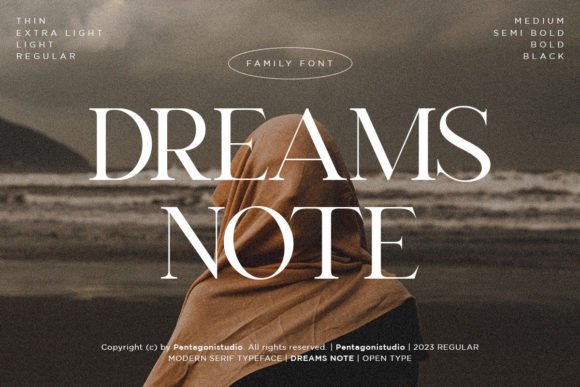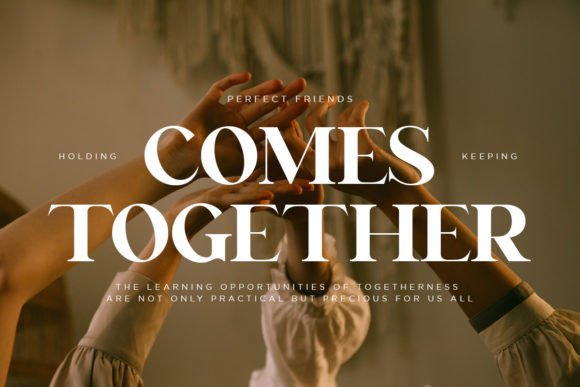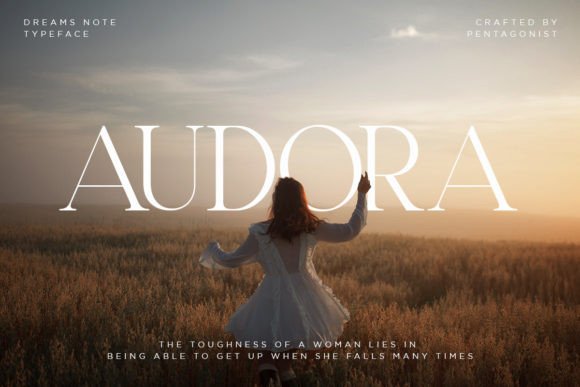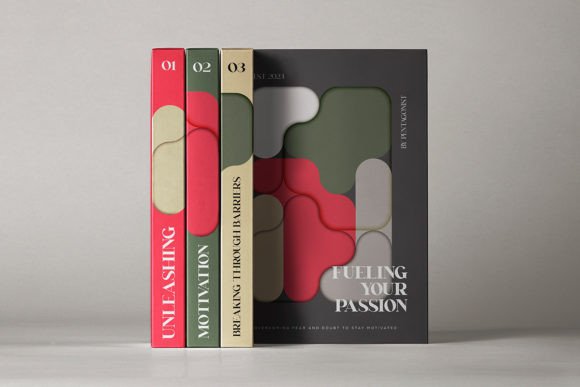
Dreams Note Font
About the Dreams Note Font
We are excited to introduce Dreams Note Font, a must-have typeface for any serious designer. Dreams Note Is A Modern Family Font Serif Including 8 Font Style. It has a modern style with a touch of creative ideas that is very suitable to be applied anywhere that requires creative ideas.
Dreams Note excels in display applications such as headlines, logos, and short-form text on posters or packaging. Its modern serif design lends a touch of sophistication without sacrificing readability in larger sizes. However, its relatively high x-height and unique character shapes make it less suitable for body text or extended reading. Avoid using it in user interfaces or situations demanding high legibility over long stretches of text.
The font’s personality is best described as modern and creative, with a slightly playful yet sophisticated feel. This makes it ideal for brands targeting a younger, design-conscious audience, or for projects emphasizing innovation and creativity.
Pairing Dreams Note with a clean sans-serif like Open Sans for body copy provides excellent contrast and visual balance. For a more playful effect, consider pairing it with a rounded geometric sans-serif. Alternatively, a delicate script font can add a touch of elegance to enhance its sophisticated aspect in branding applications.